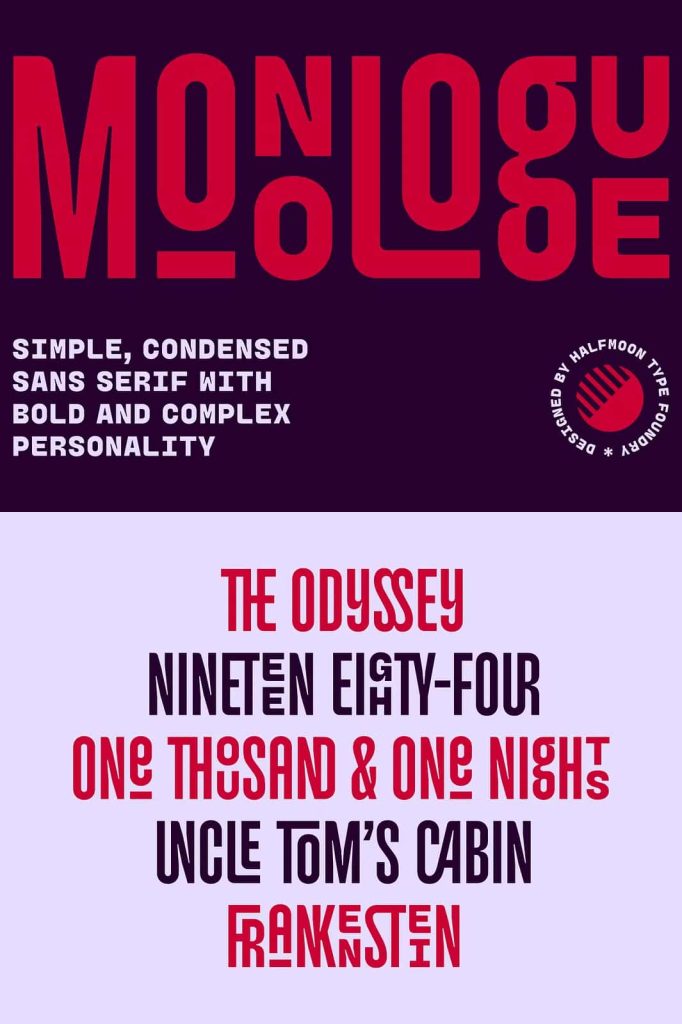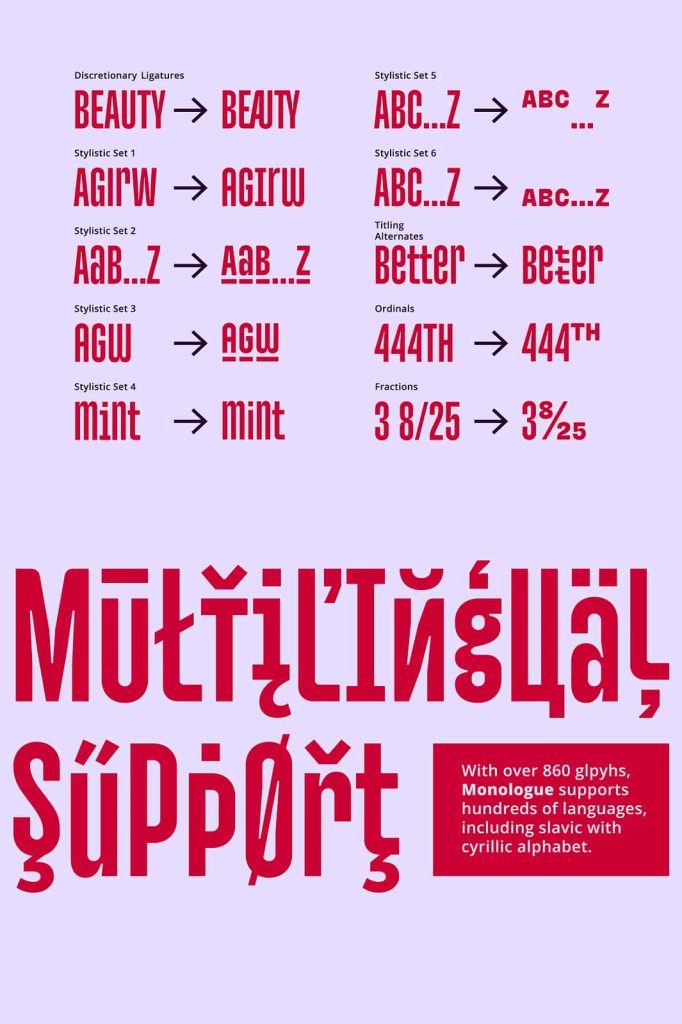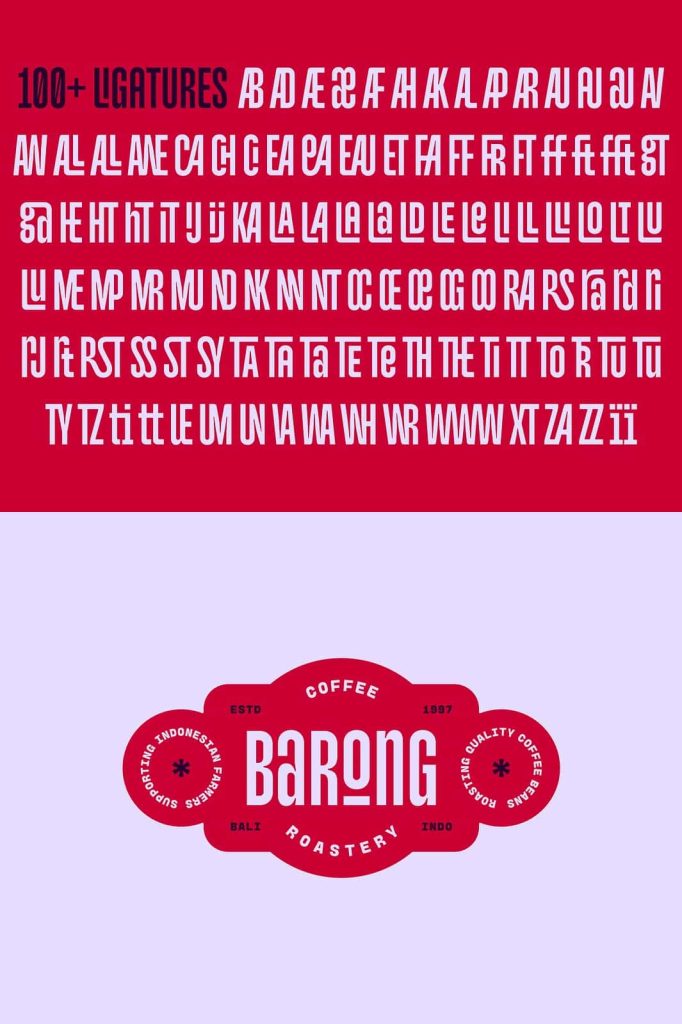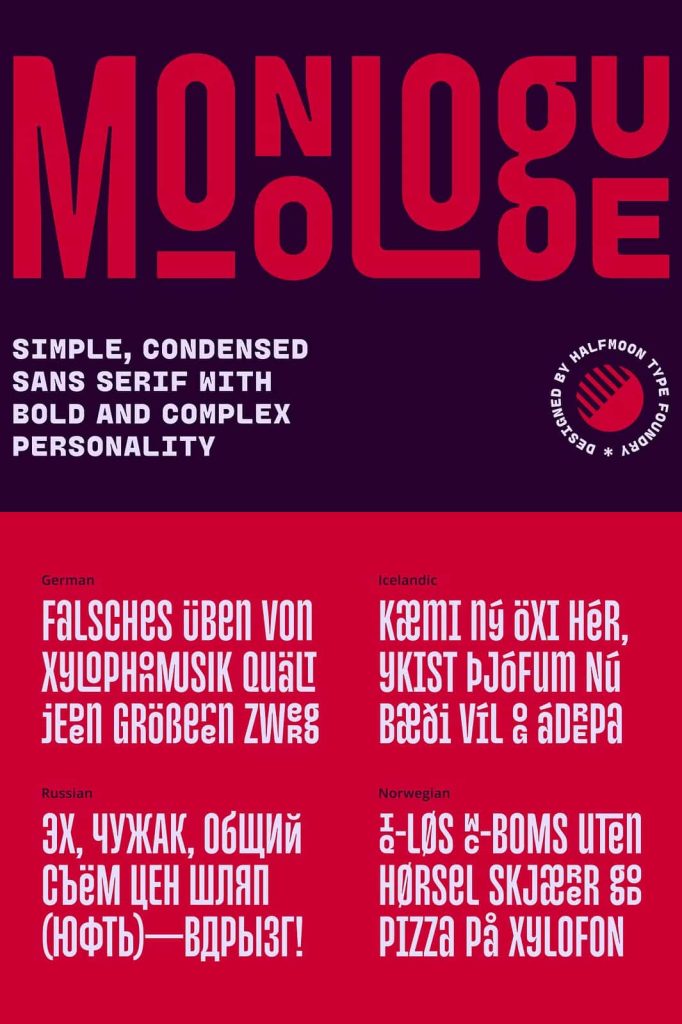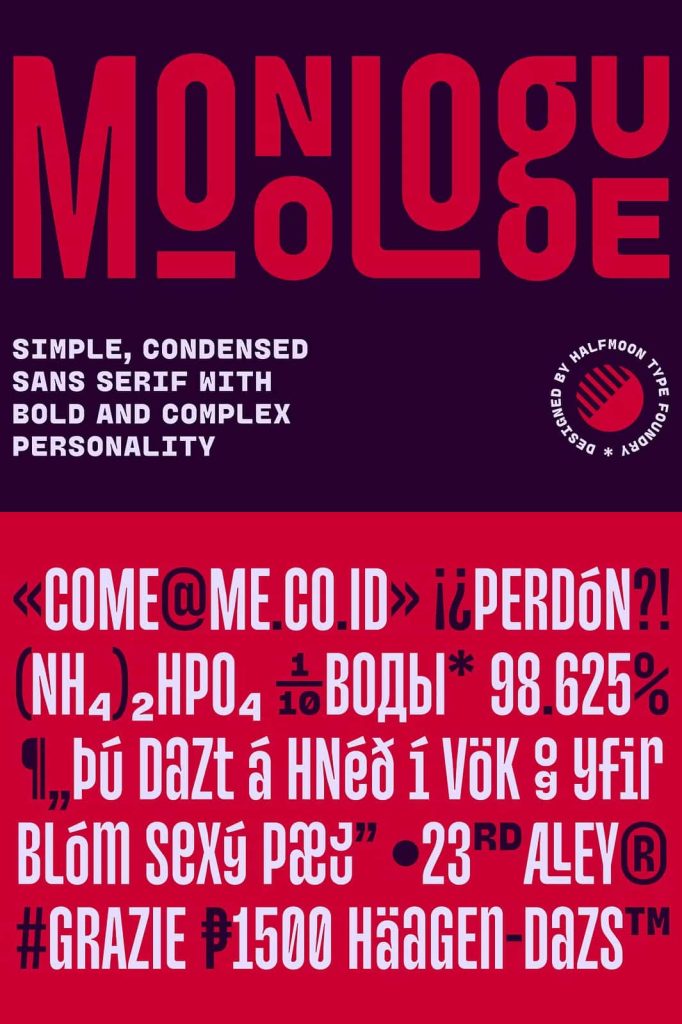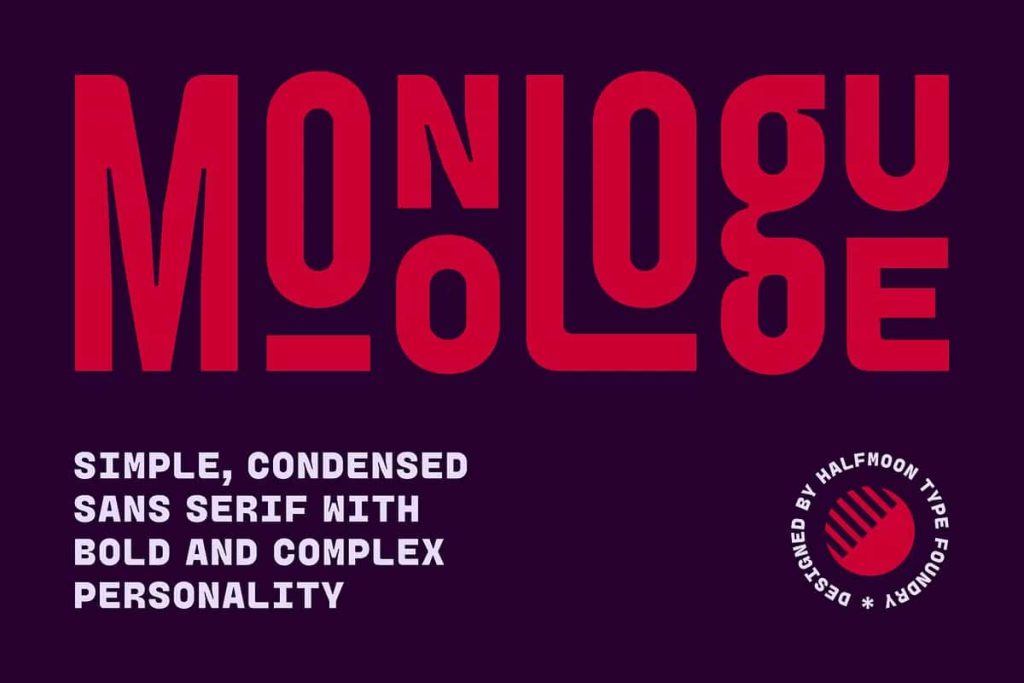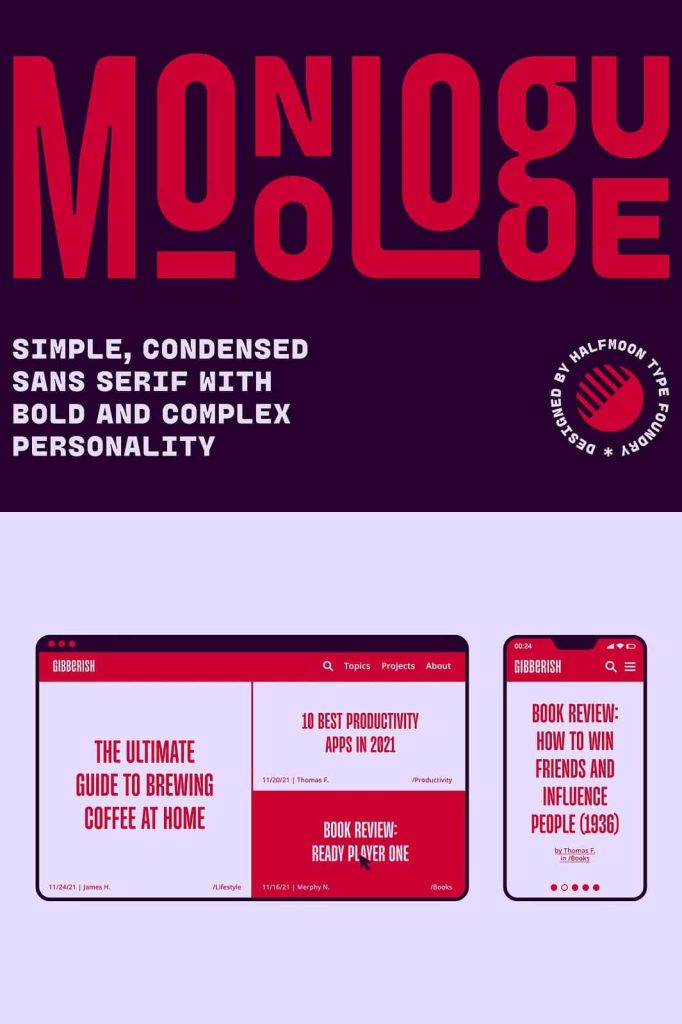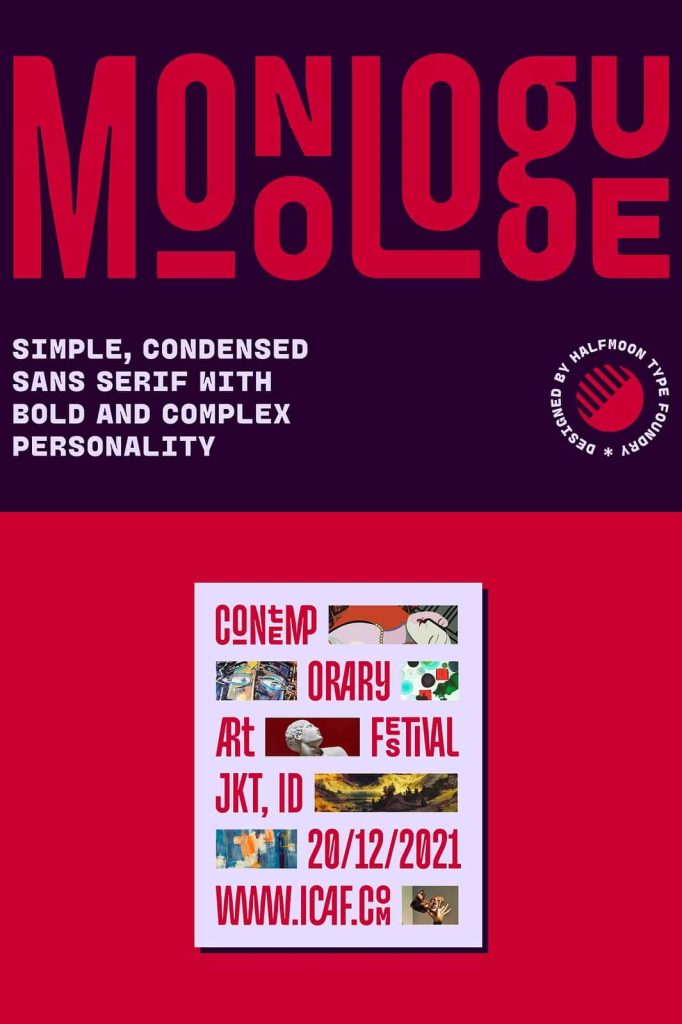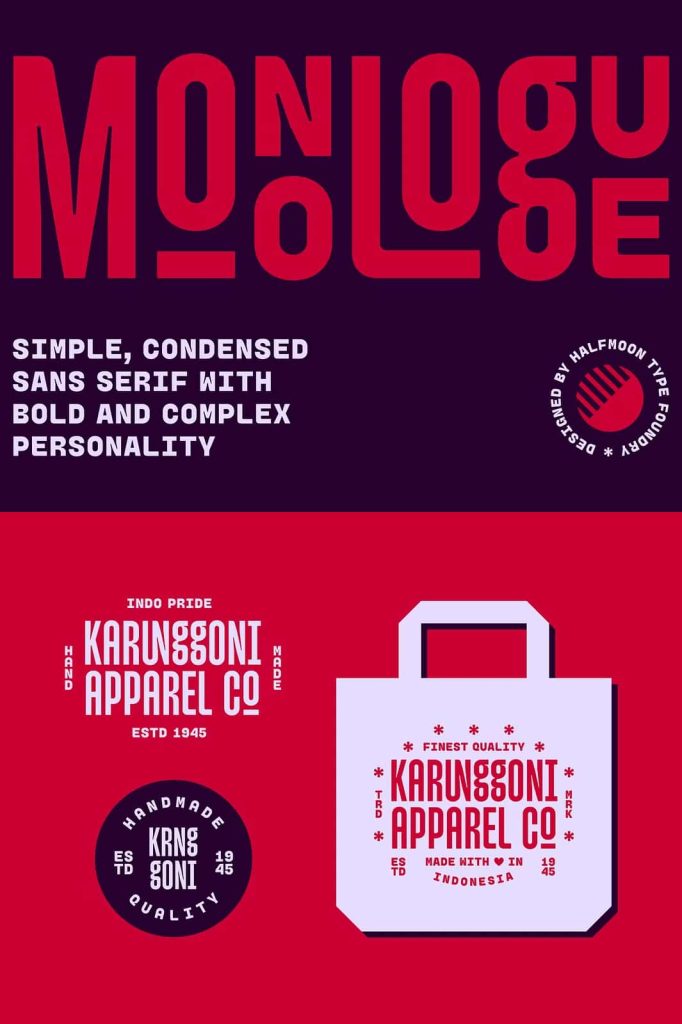
Monologue: A Bold and Condensed Sans Serif Font for Powerful Visual Impact
Monologue is a modern sans serif font created with a clear purpose: to deliver strong visual impact through simplicity, clarity, and personality. Designed with a condensed structure and confident weight, this typeface communicates bold ideas with precision and authority. Whether used in large-scale designs or refined digital layouts, Monologue brings a commanding presence that immediately captures attention and strengthens visual identity.
A Strong Personality Built for Headlines and Display Use
At its core, Monologue is a display-focused sans serif font crafted to perform exceptionally well at large point sizes. Its condensed letterforms allow designers to maximize space without sacrificing readability, making it an excellent choice for headlines, titles, and prominent text elements. The font’s sharp structure and confident strokes create a bold voice that speaks clearly in competitive visual environments.
Unlike generic sans serif fonts, Monologue carries a distinct and complex personality. Each character is carefully shaped to maintain balance while projecting strength and clarity. This makes it ideal for designs that require a strong tone, such as editorial layouts, advertising campaigns, or brand messaging that must stand out instantly.
Consistent Performance Across Large and Small Sizes
Although Monologue was intentionally designed for large-scale usage, it maintains its visual integrity even at smaller sizes. The clean construction and thoughtful spacing ensure that text remains legible and visually appealing across various applications. This versatility allows designers to use Monologue not only for headlines but also for subheadings, captions, and supporting text when consistency is required.
Its ability to retain character at different sizes makes Monologue a reliable option for both print and digital projects. From high-resolution billboards to responsive website layouts, the font adapts smoothly without losing its distinctive style or impact.
Extensive Ligatures and Alternates for Creative Flexibility
Monologue offers a rich set of ligatures, alternates, and stylistic features that empower designers to customize their typography with precision. These features allow you to refine letter combinations, introduce unique visual rhythm, and create typographic compositions that feel tailored rather than generic.
By leveraging these advanced features, designers can push creativity further and ensure that each project carries a unique identity. Whether designing a logo, a poster, or a magazine cover, Monologue provides the tools needed to build typography that feels intentional, expressive, and original.
Perfect for Branding, Logos, and Editorial Design
Monologue excels in branding and logo design where clarity and memorability are essential. Its condensed structure helps create compact yet powerful wordmarks, while its bold appearance reinforces brand confidence and authority. The font works equally well in editorial contexts, adding structure and impact to magazine layouts, cover titles, and feature headings.
In digital environments, Monologue enhances website headers, landing pages, and promotional banners with a modern and professional tone. Its clean sans serif style aligns well with contemporary design trends while still offering enough personality to feel distinctive.
A Typeface That Elevates Visual Communication
Monologue is more than just a font; it is a strategic design tool built to elevate visual communication. Its balance of simplicity and complexity allows designers to communicate messages clearly while maintaining a strong aesthetic presence. The font’s adaptability across multiple platforms ensures consistency, cohesion, and professionalism in every project.
Whether you are designing for print, web, or branding, Monologue delivers the confidence and flexibility needed to create impactful typography. With its bold character, condensed form, and extensive stylistic options, Monologue stands as a reliable choice for designers who demand clarity, strength, and creative control in their work.